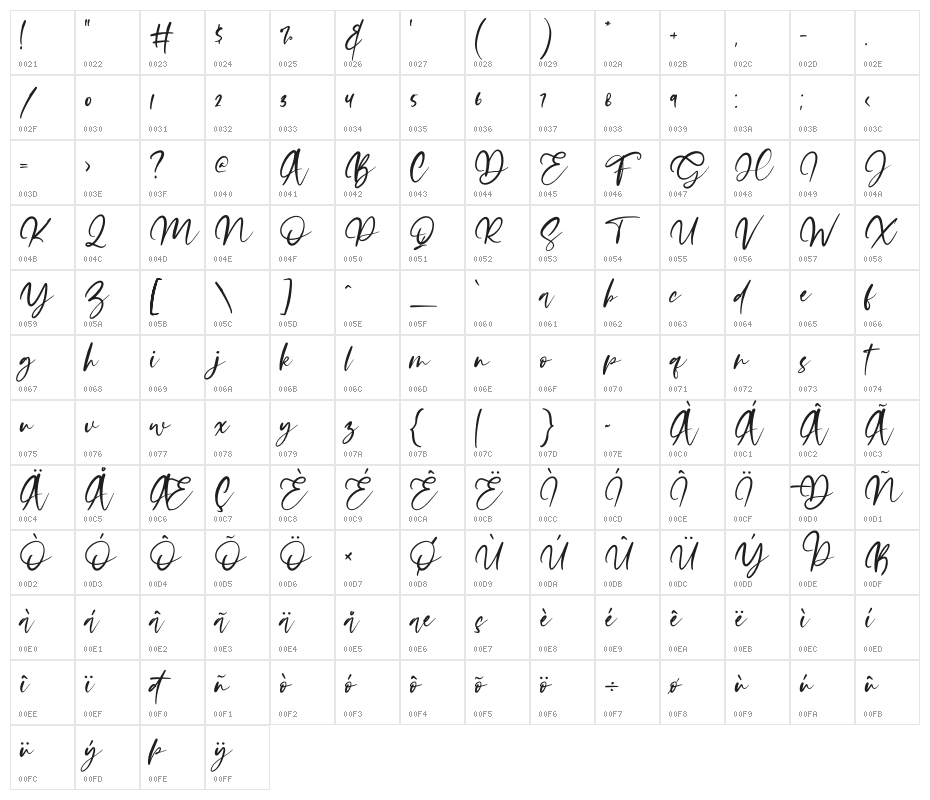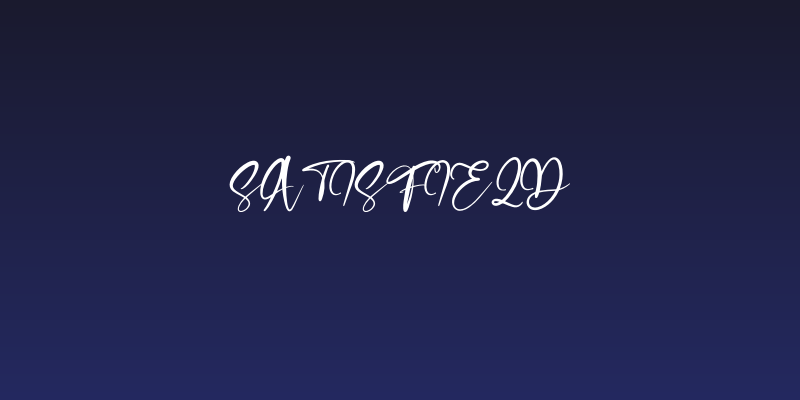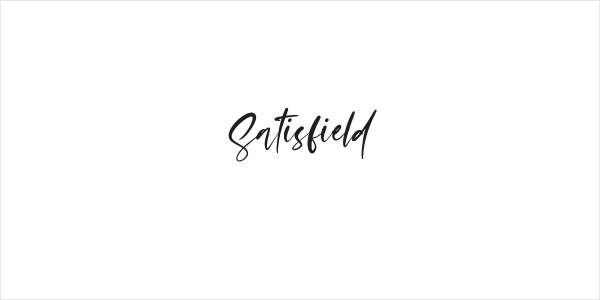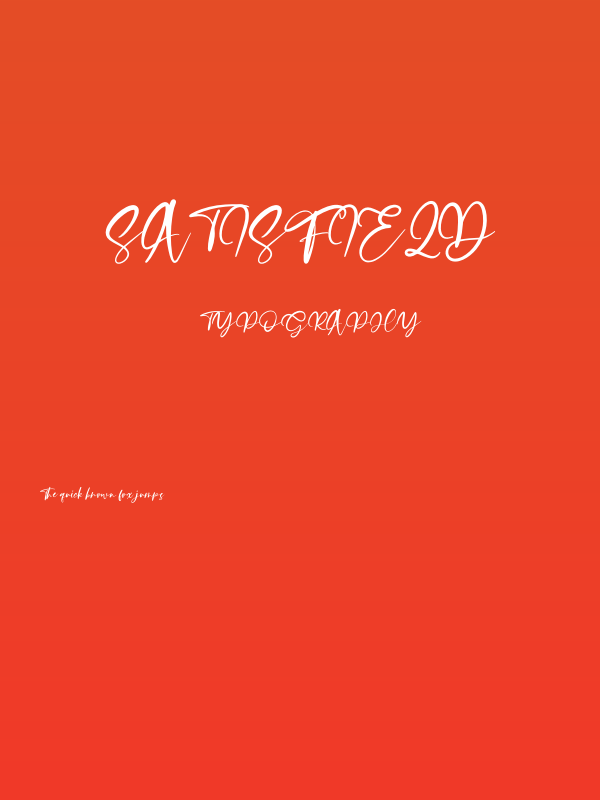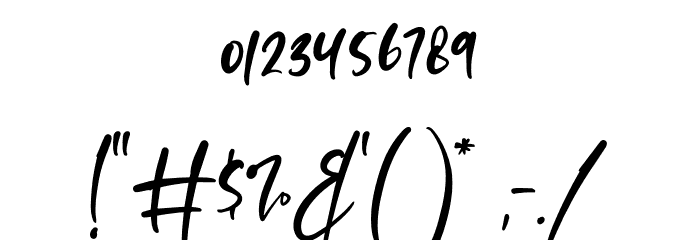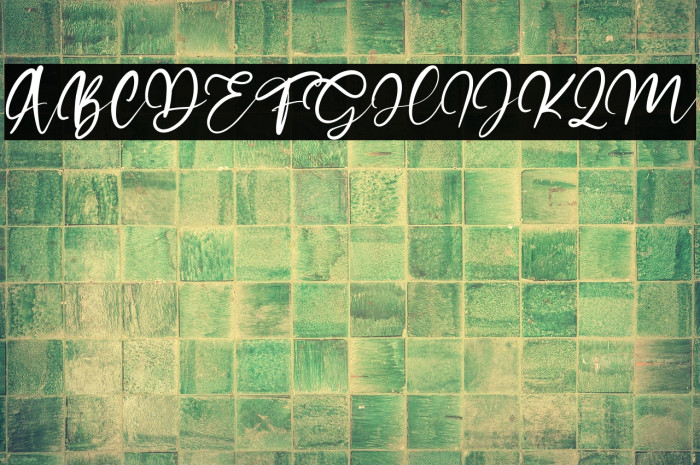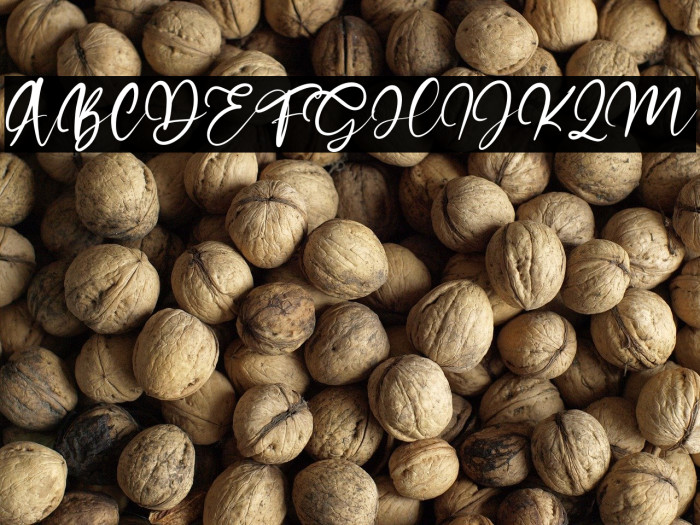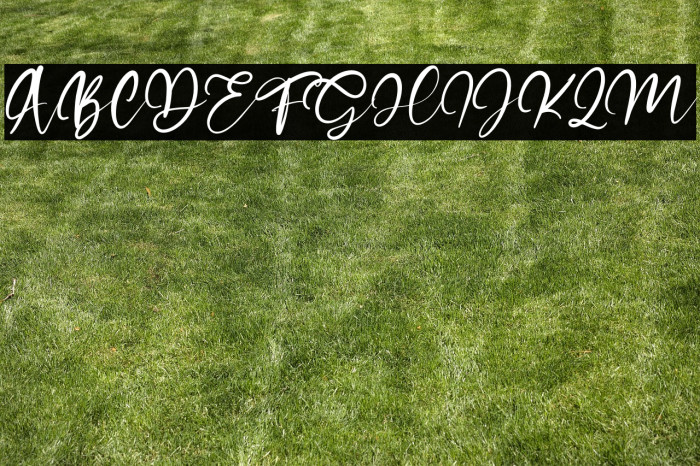
Satisfield Font
Satisfield Description
This font features an elegant, flowing script style that mimics the fluidity of handwritten calligraphy. The letters are connected with smooth, sweeping curves, giving it a sophisticated and artistic appearance. The uppercase letters are slightly more elaborate, with decorative flourishes that enhance their visual appeal. The lowercase letters maintain a consistent style, with some characters like 'g' and 'y' having distinctive loops. The numerals are designed to match the overall script style, maintaining the same fluidity and elegance. Special characters are also included, with a similar attention to detail and style. This font is perfect for projects that require a personal, artistic touch.